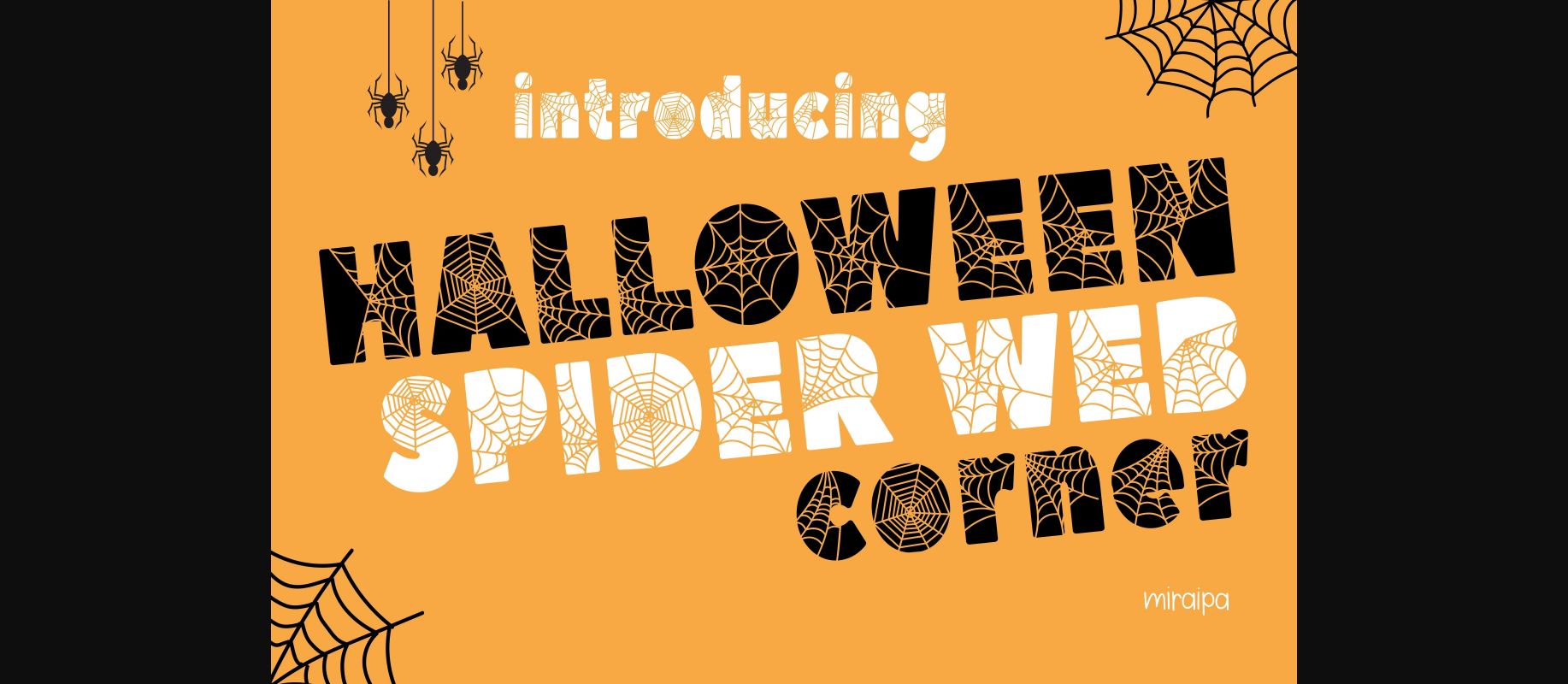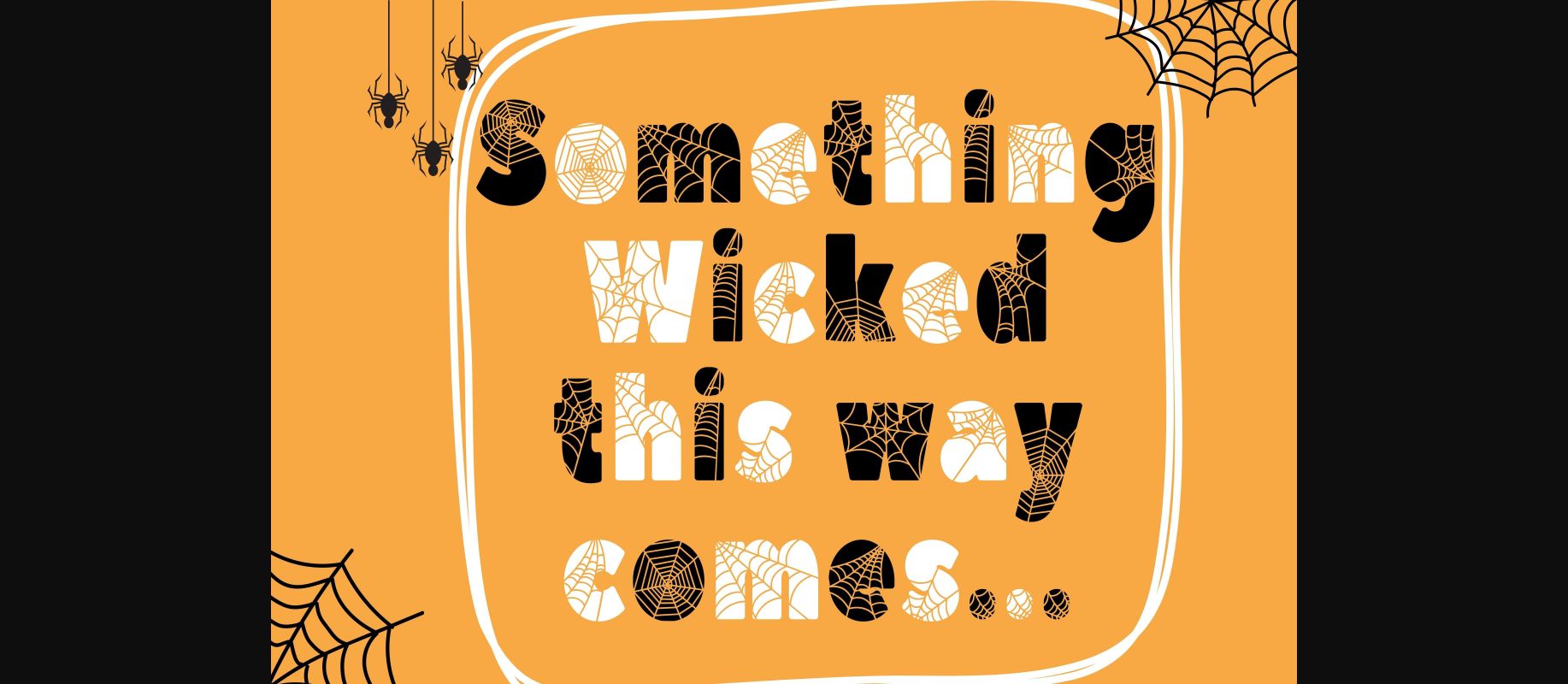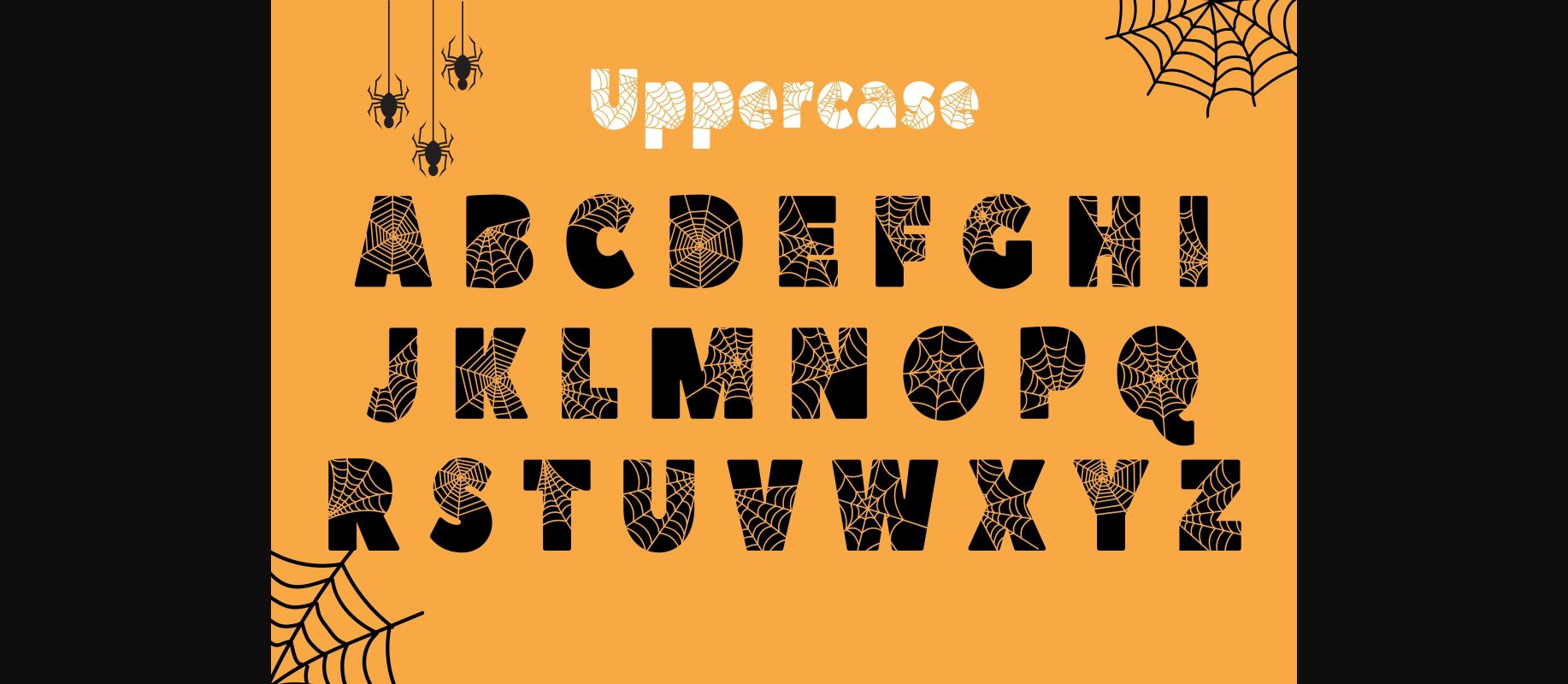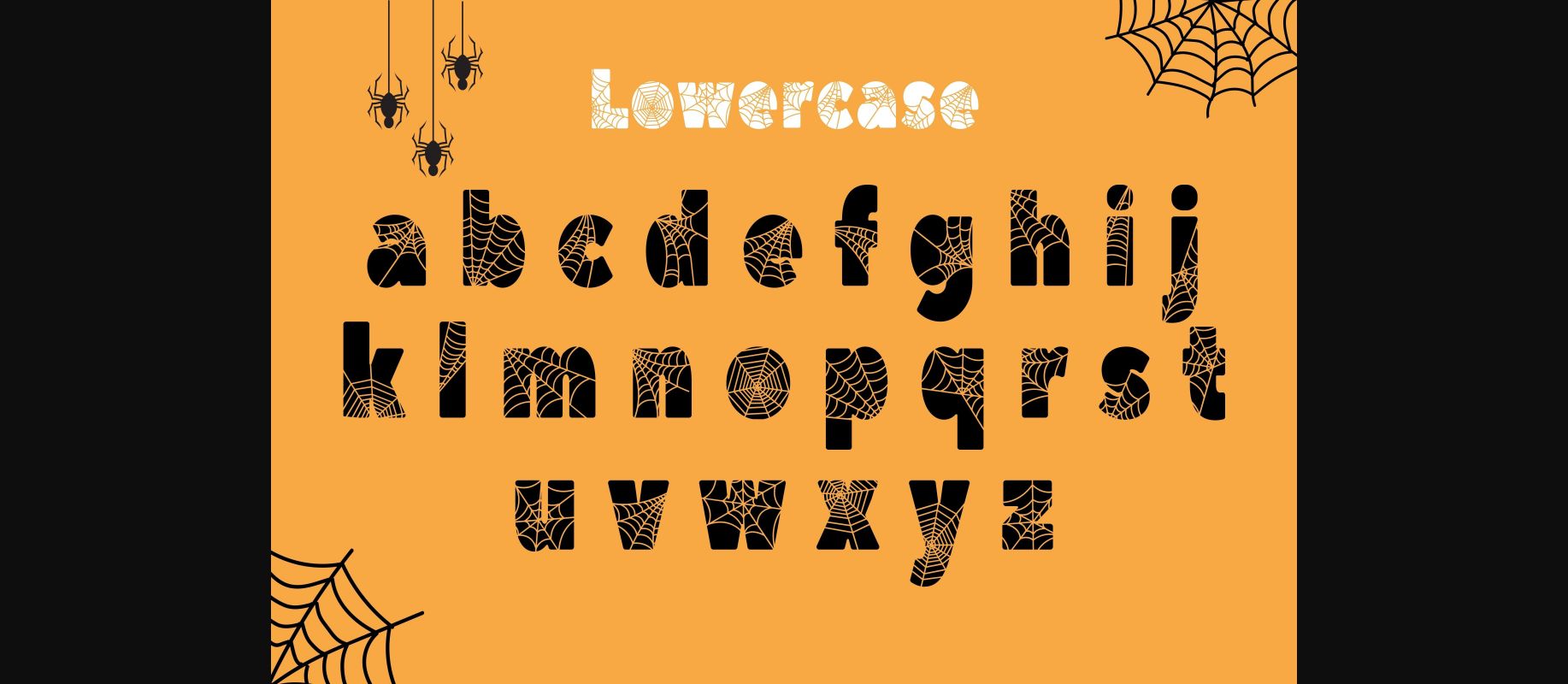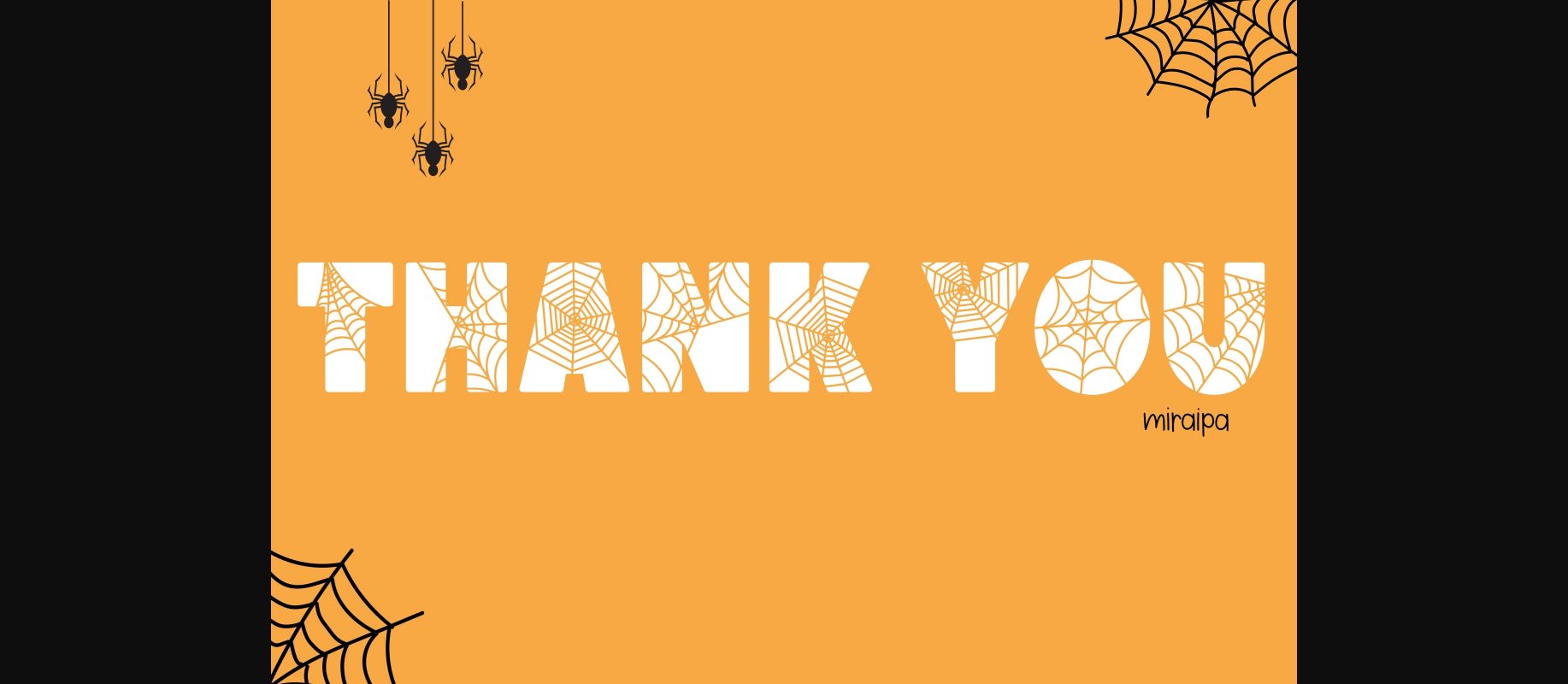
Spider Web Corner Font
About Spider Web Corner Font
Spider Web Corner is a decorative font designed in a playful and spooky style. It would be awesome for all your Halloween or horror-related projects.